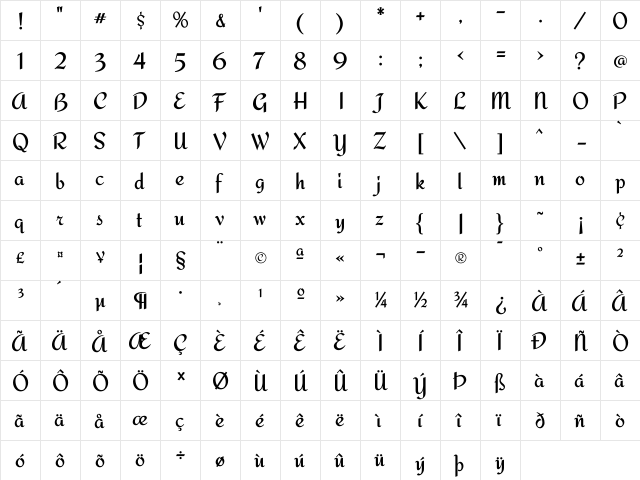
Redressed Regular
Design Context for Redressed Typeface
Redressed is a composed and adaptable typeface that performs quietly and consistently across a wide range of design contexts.